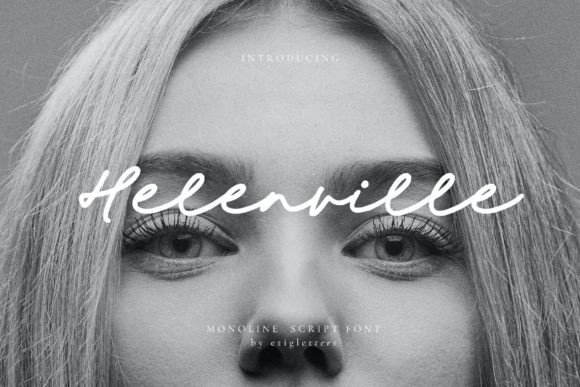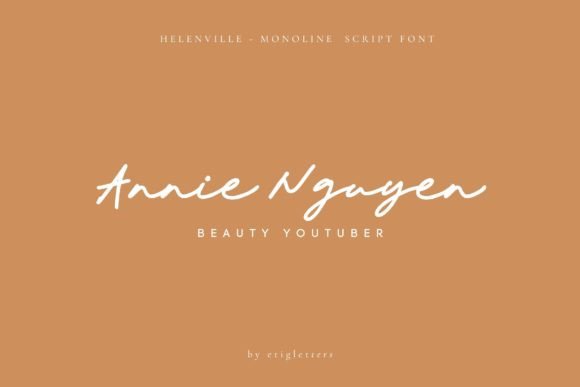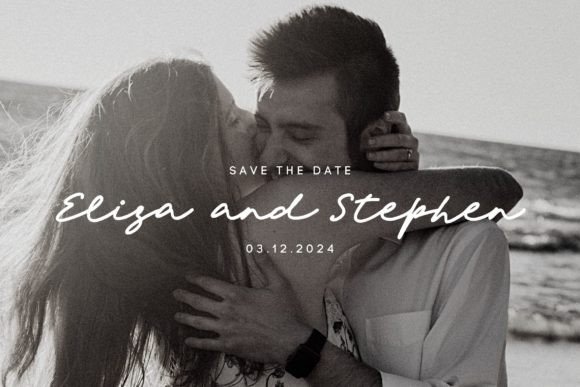
About Helenville Font Download
Helenville font download is a charming and elegant monoline script that has been masterfully designed to become a true favorite among designers. This font brings a delicate yet sophisticated style, making it an excellent choice for a wide range of creative projects. When you download Helenville font, you gain access to a versatile typeface that can elevate your ideas to the highest level.
Elegant and Clean Monoline Design
One of the standout features of Helenvillefont download is its clean monoline style. The uniform line thickness creates a smooth and refined look that works beautifully for modern design trends. Whether you are crafting logos, branding materials, or wedding invitations, this font adds a graceful touch.
Versatile for Various Creative Uses
Helenvillefont download is perfect for multiple uses. You can easily apply it to social media posts, quotes, product packaging, and editorial designs. Its elegant curves and balanced form ensure that it fits seamlessly into both digital and print projects.
Why Download Helenville Font?
By choosing to download Helenvillefont, you are investing in a typeface that offers both style and usability. Its elegant monoline design enhances any project with a fresh yet timeless appeal. Many designers will find Helenville font to be a go-to option for creating eye-catching logos and sophisticated branding.
In summary, Helenvillefont download is a must-have for anyone seeking an elegant monoline script font. Download it today to add charm and refinement to your creative projects, and watch your designs come to life like never before.